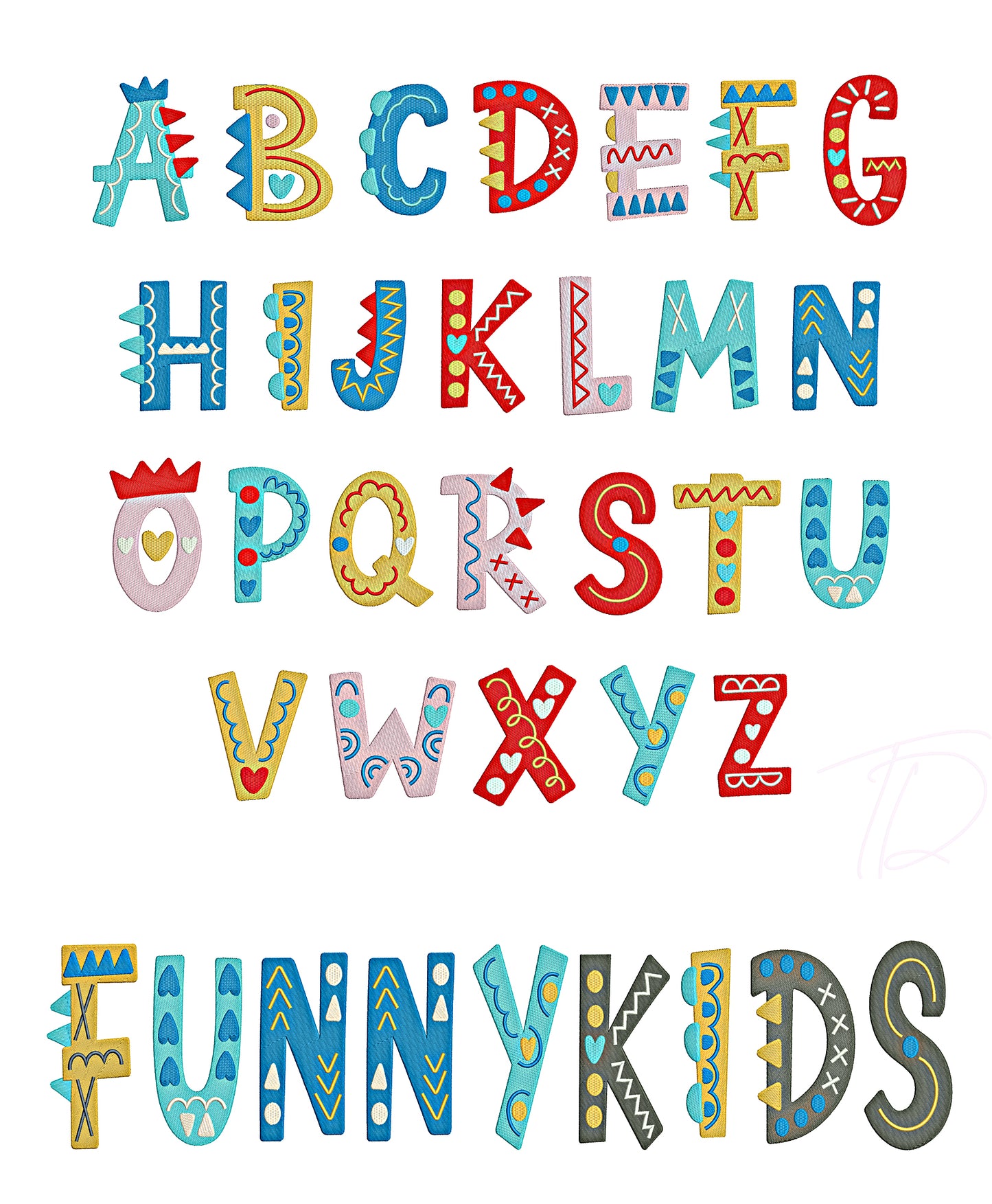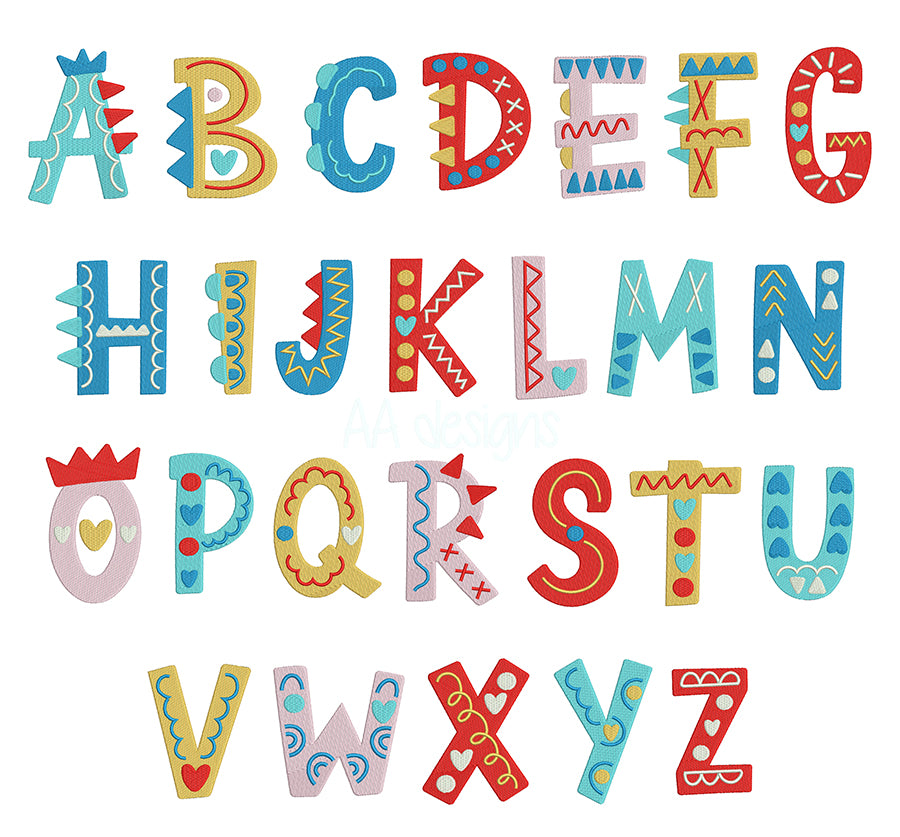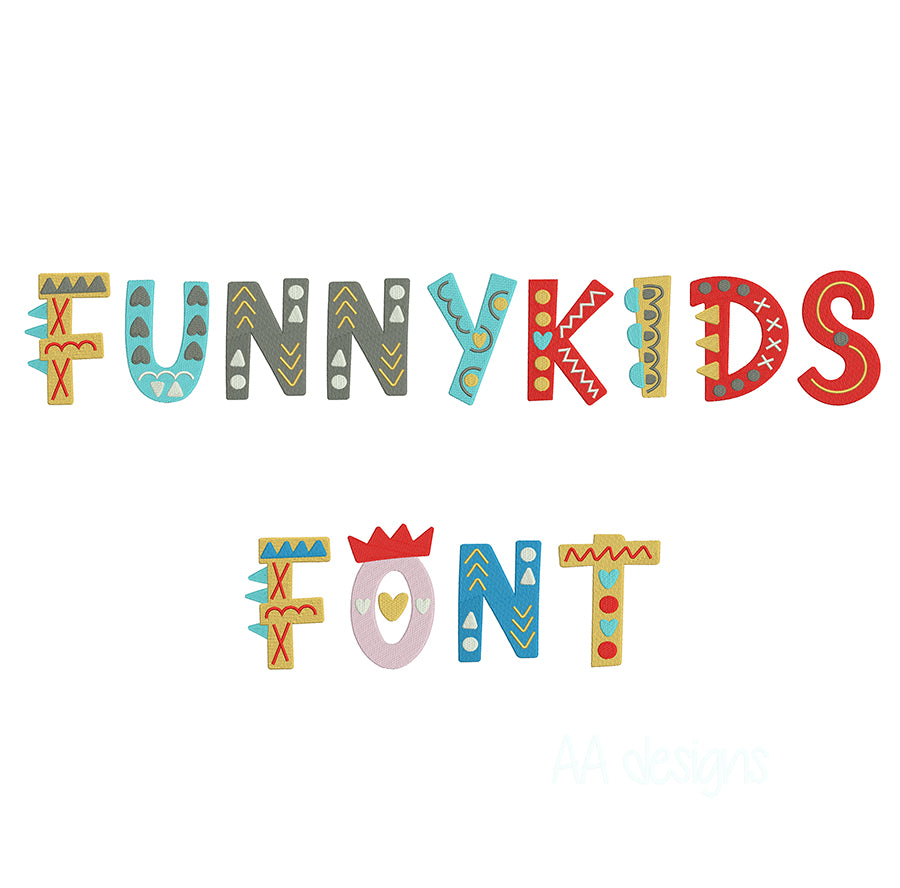
Funny kids embroidery digital font. Colorful embroidery font for baby.
Funny kids embroidery digital font.
This font comes with letters in 3 sizes, A-Z (Upper case)